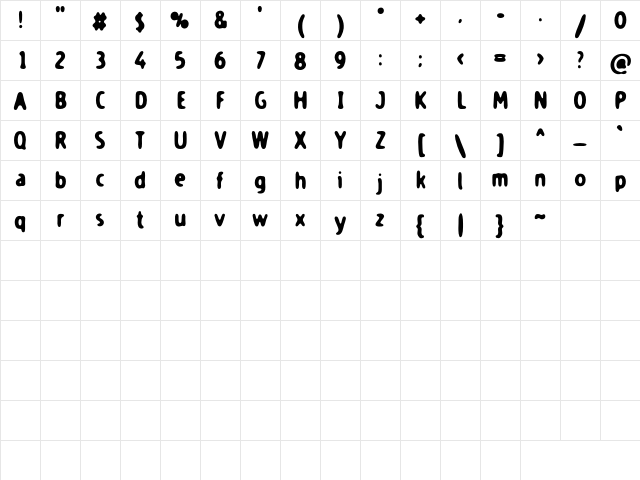
Complete BureaucracyFederal Regular glyph index. Displaying only characters natively supported by BureaucracyFederal Regular font.
BureaucracyFederal is a composed and adaptable typeface that performs quietly and consistently across a wide range of design contexts.